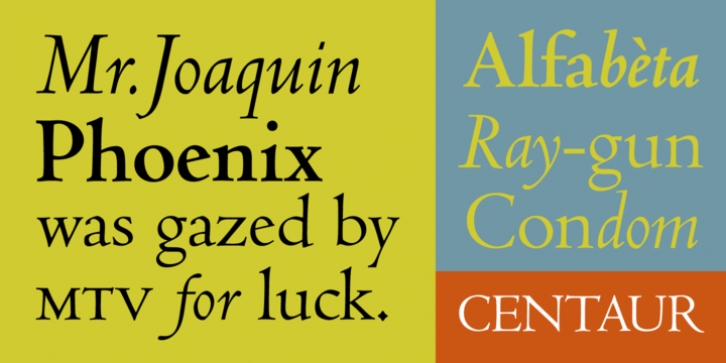
Originally designed by Bruce Rogers for the Metropolitan Museum in 1914, Centaur was released by Monotype in 1929. Modeled on letters cut by the fifteenth-century printer Nicolas Jenson, Centaur has a beauty of line and proportion that has been widely acclaimed since its release. The italic type, originally named Arrighi, was designed by Frederic Warde in 1925. He modeled his letters on those of Ludovico degli Arrighi, a Renaissance scribe whose lettering work is among the finest of the chancery cursives. Arrighi was produced by Monotype as the companion for Centaur in 1929. Centaur is a beautiful typeface for books, and can be used effectively for shorter text as well. The Centaur Italic (Arrighi) Alternate offers a different design for the lowercase z and zcaron.